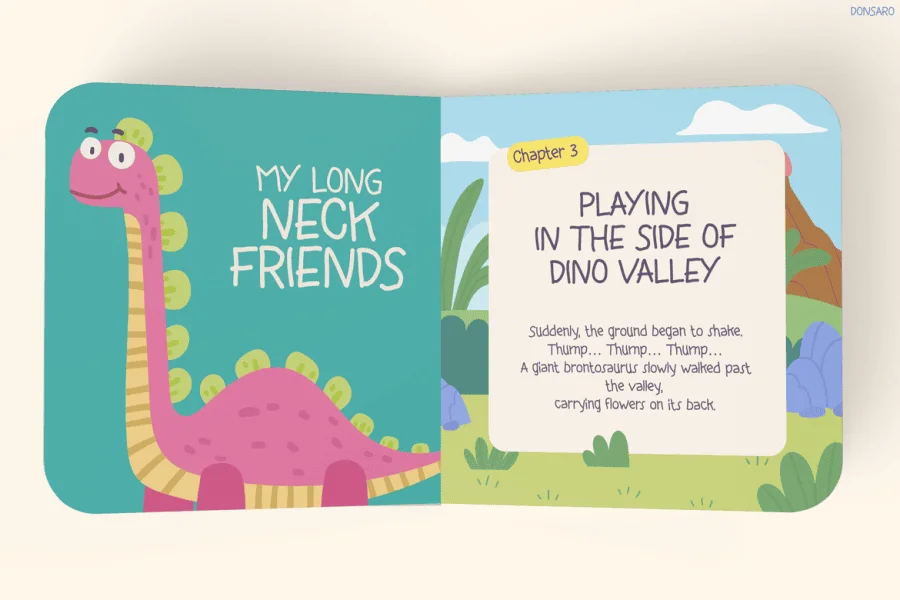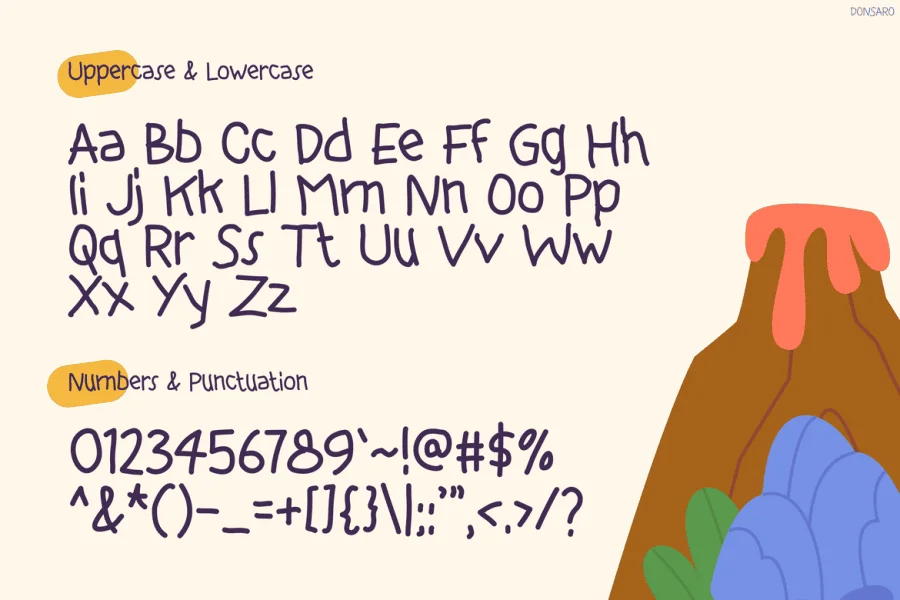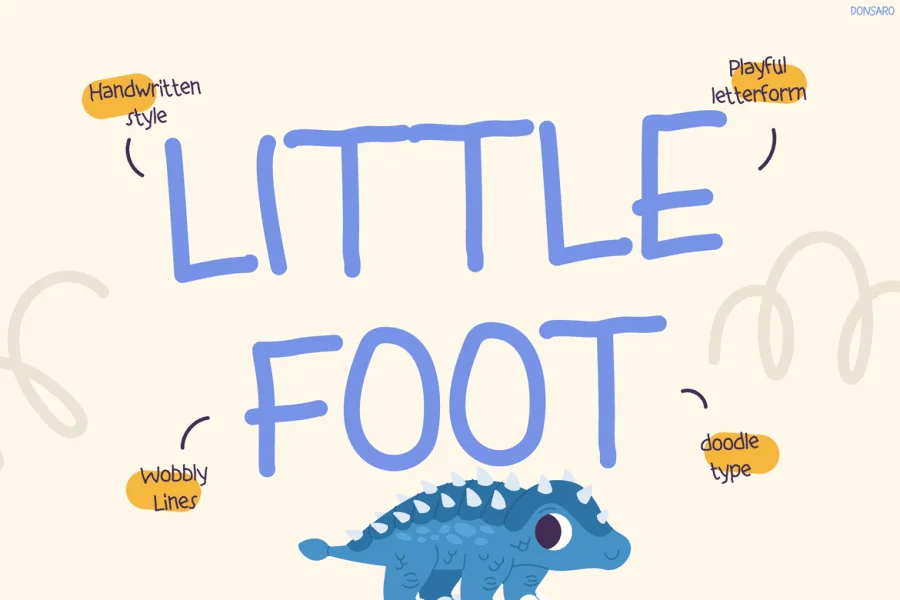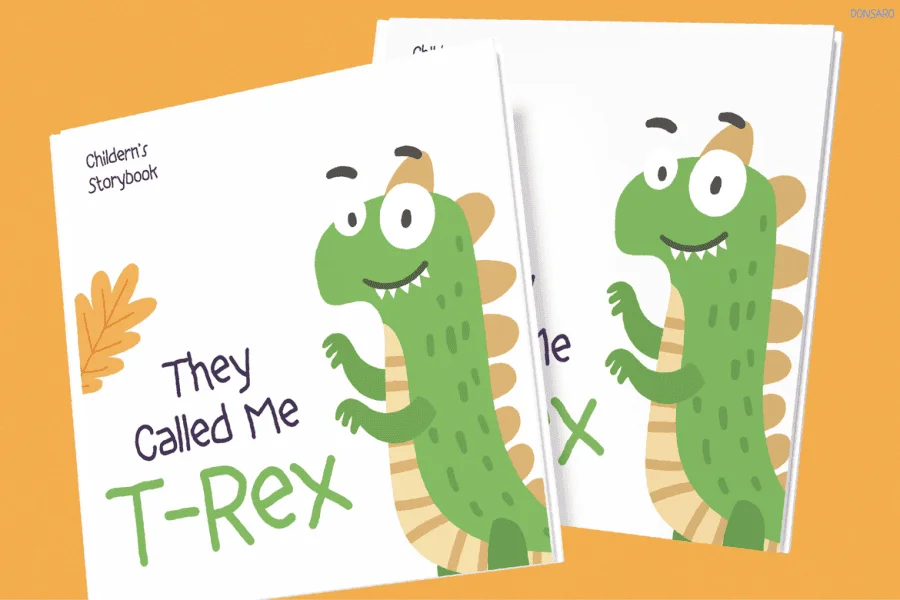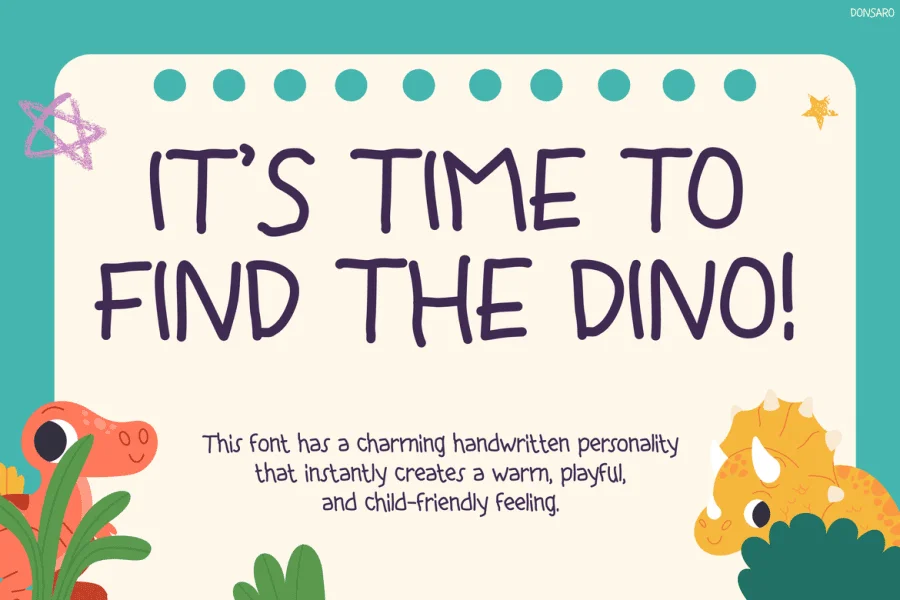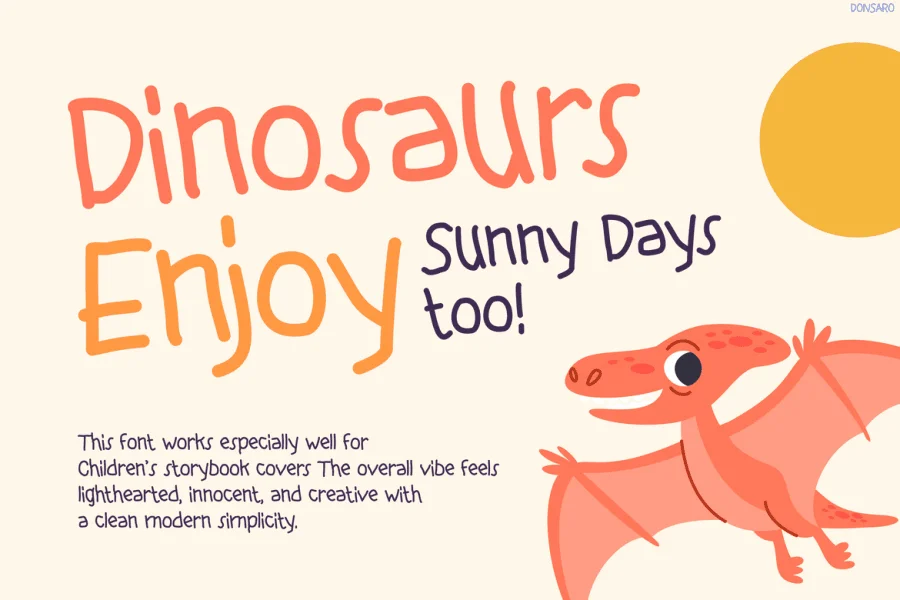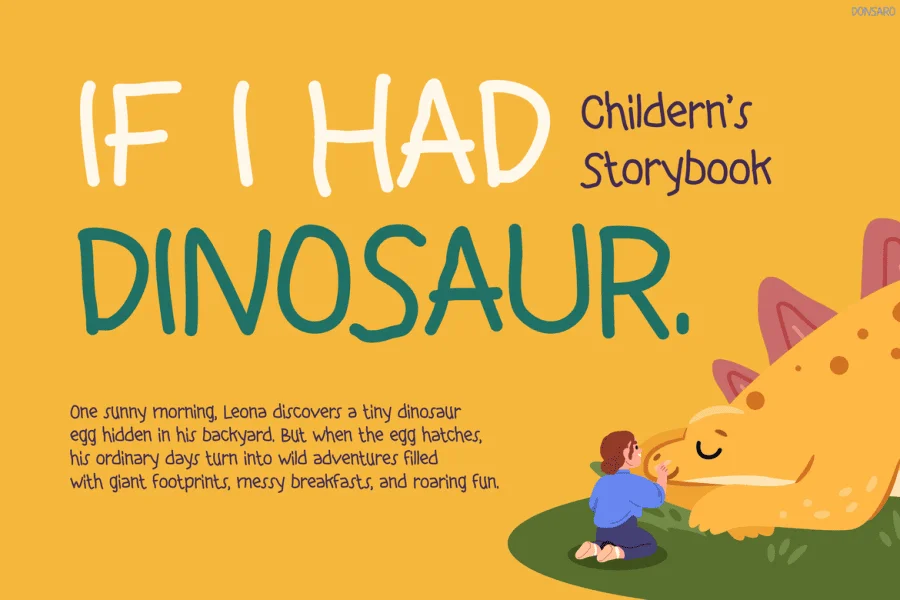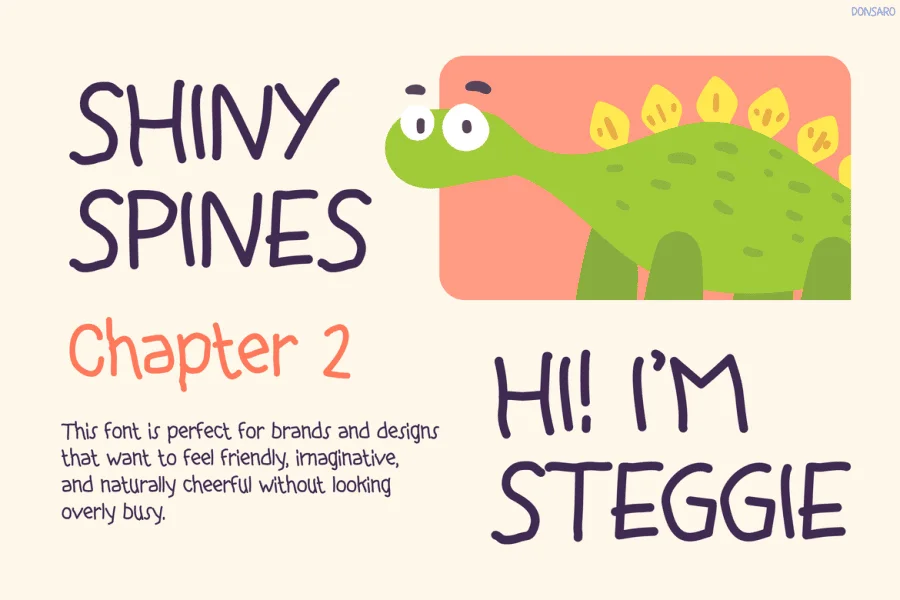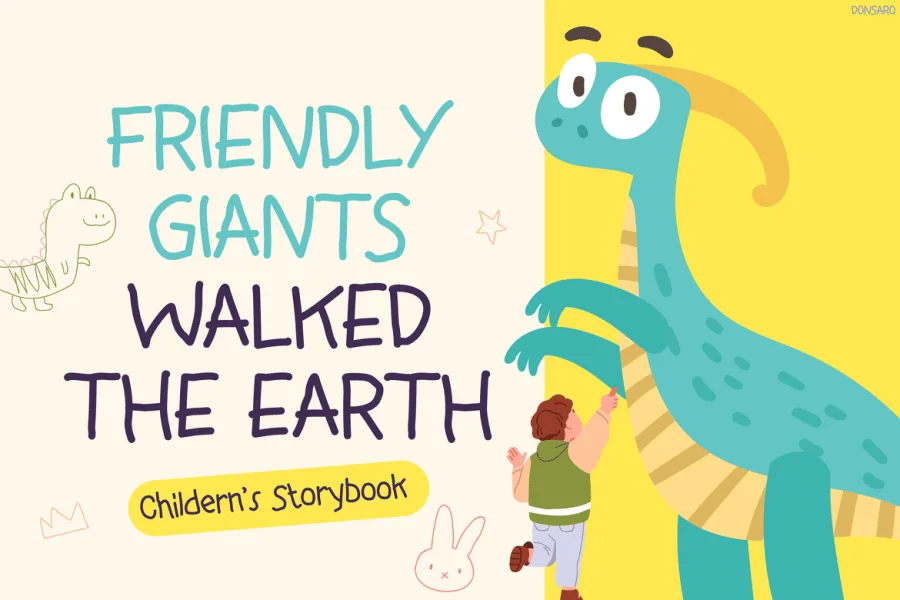
Donsaro is a charming, hand-drawn sans-serif typeface characterized by its casual, wobbly lines and playful letterforms. Built with a monoline stroke weight, the typeface maintains a consistent thickness that mimics the natural flow of a felt-tip marker. Its structure is tall and slightly condensed, featuring blunt terminals and a loose, organic rhythm that gives each character an authentic, hand-lettered appearance. The lack of rigid geometry infuses the font with a warm, approachable, and lighthearted personality.
This friendly aesthetic makes the typeface exceptionally well-suited for children's storybook covers, playful editorial layouts, and educational materials. Its clean simplicity ensures legibility while adding a creative, doodle-like quality to packaging, event branding, and digital interfaces designed for younger audiences or projects requiring an innocent, personal touch.